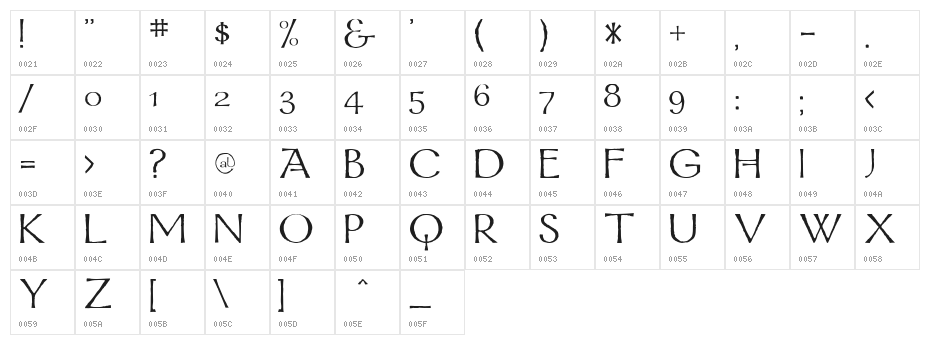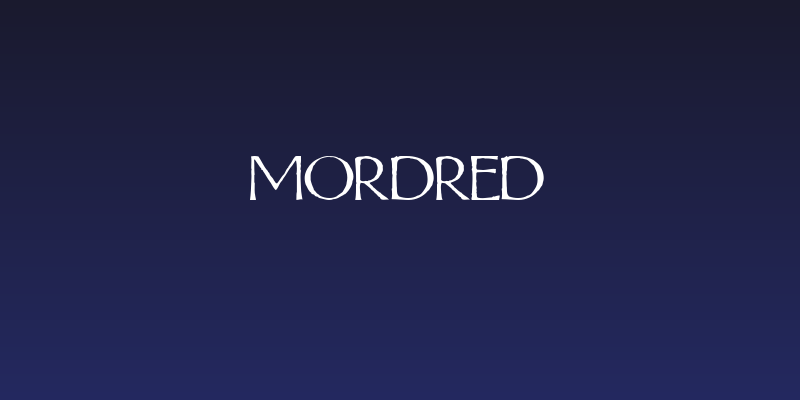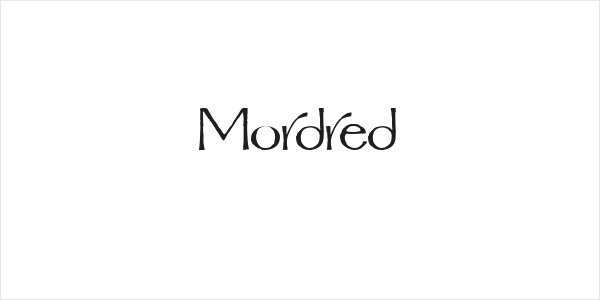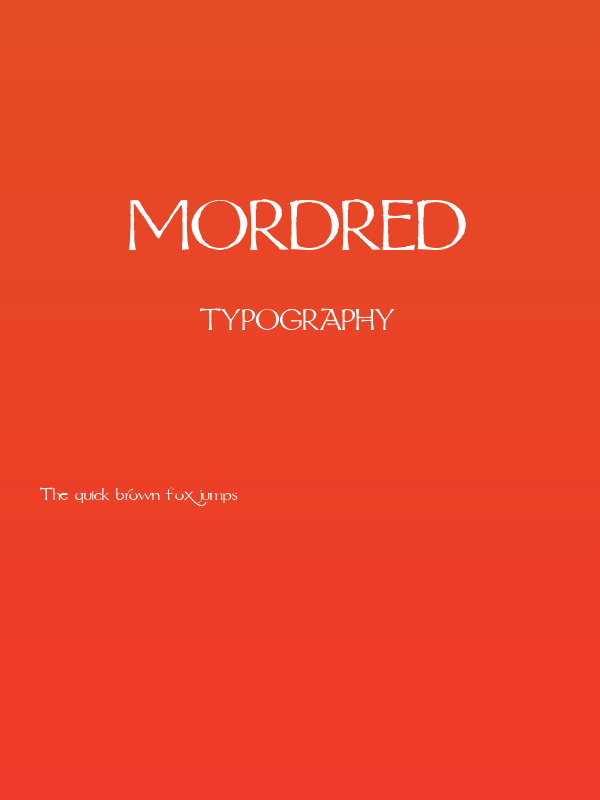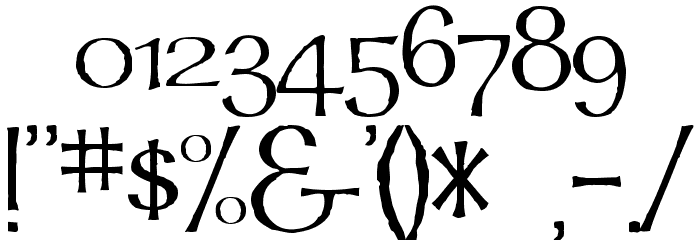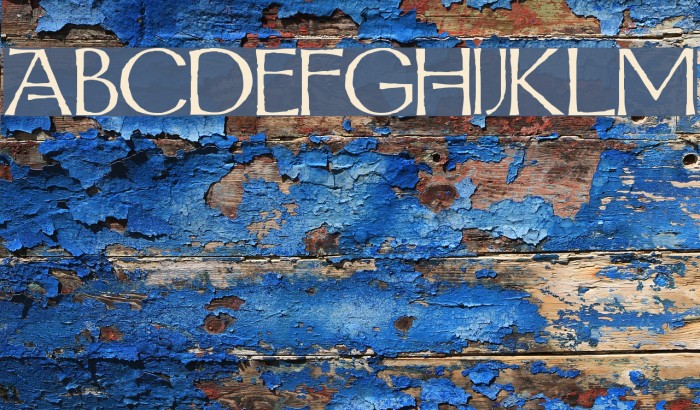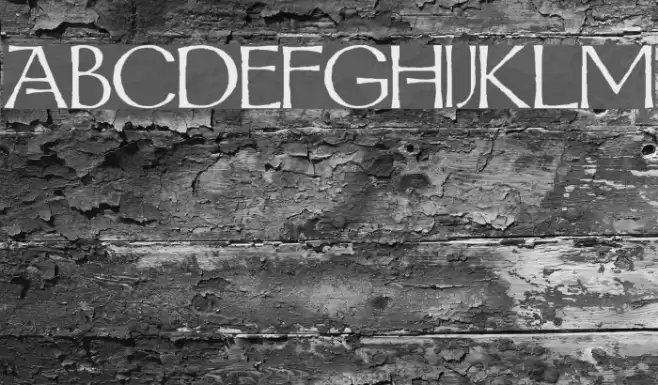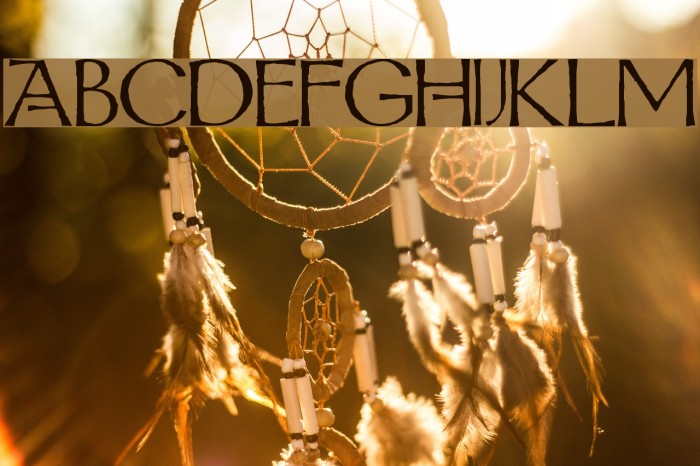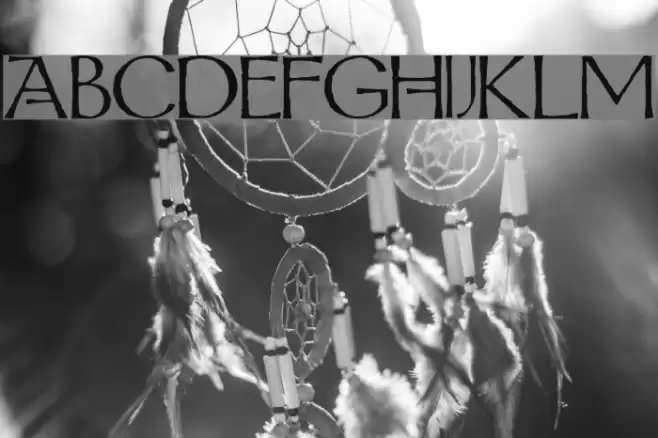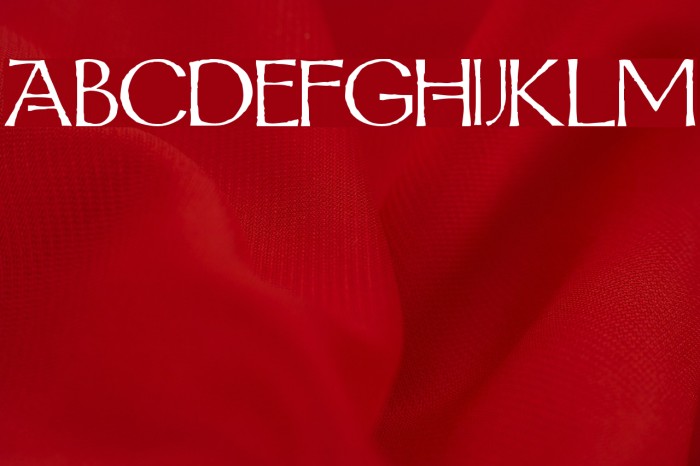
Mordred Font
Mordred Description
This font features a unique blend of medieval and modern elements, characterized by its sharp, angular lines and slightly irregular strokes. The uppercase letters are tall and narrow, with distinctive serifs that add a touch of elegance. The lowercase letters maintain a consistent style, with some characters exhibiting playful curves that enhance the font's whimsical nature. Numbers are bold and clear, ensuring readability, while the special characters are designed with a creative flair that complements the overall aesthetic. The font's artistic style makes it suitable for projects that require a touch of fantasy or historical charm.
| Overall Style | Medieval, Artistic |
| Proposed Projects | Ideal for fantasy book covers, historical event posters, or themed invitations. |